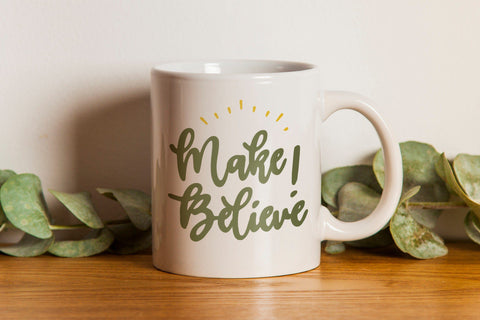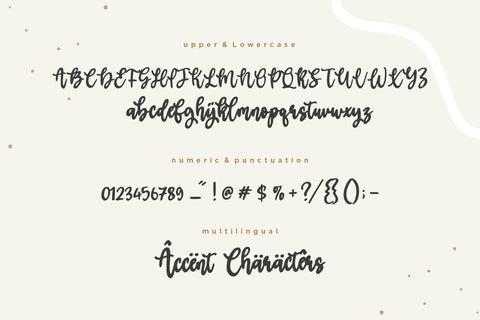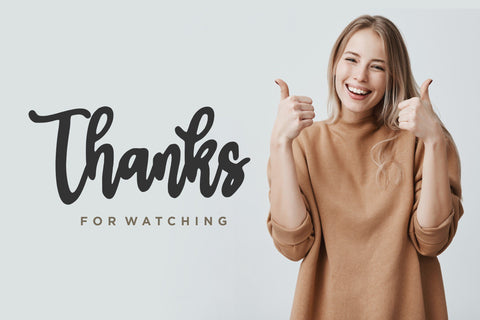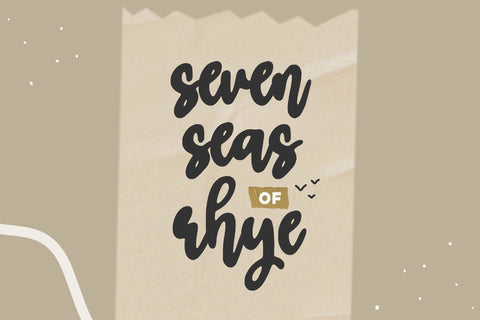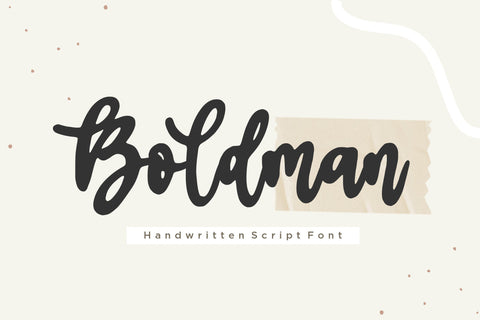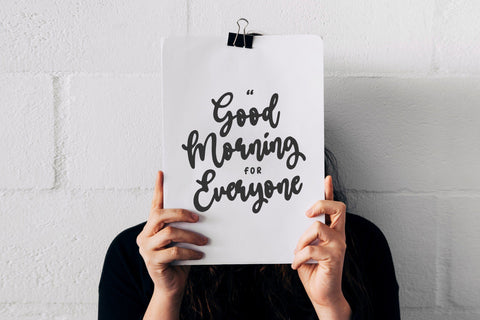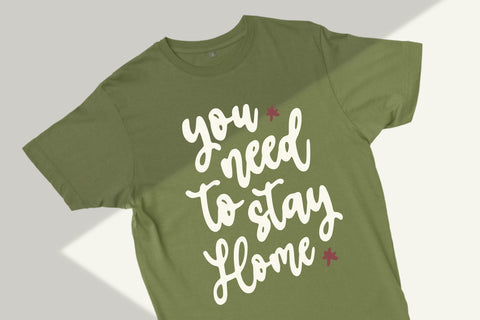
Boldman Handwritten Script Font
Boldman is a Handwritten Script Font.
Boldman is a chic, trendy script font that emanates confidence and versatility. Its stylish alternates and ligatures make this font the perfect match for any project.